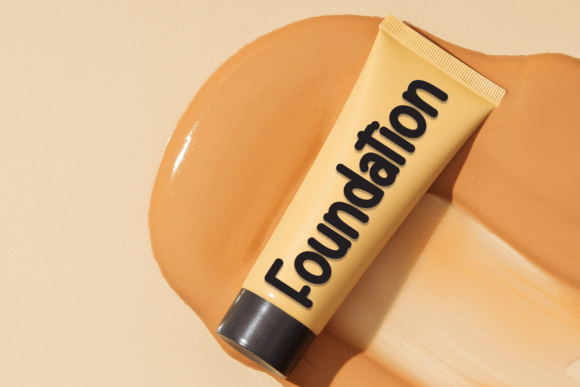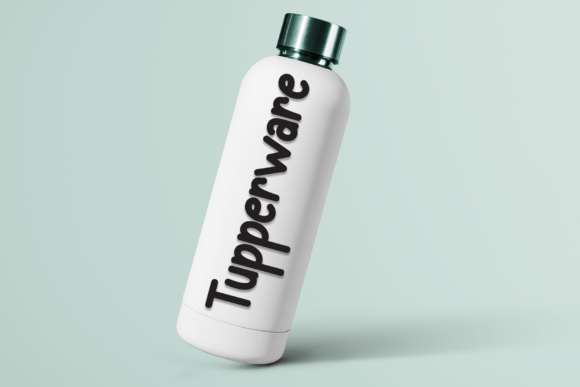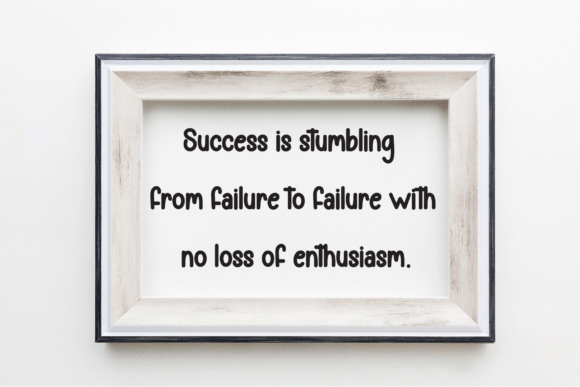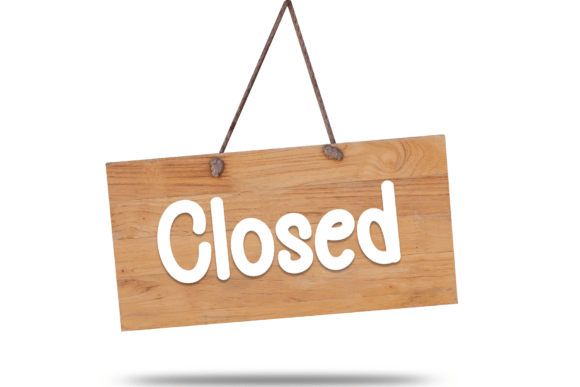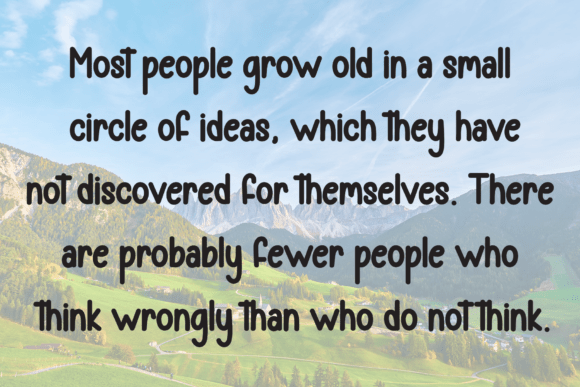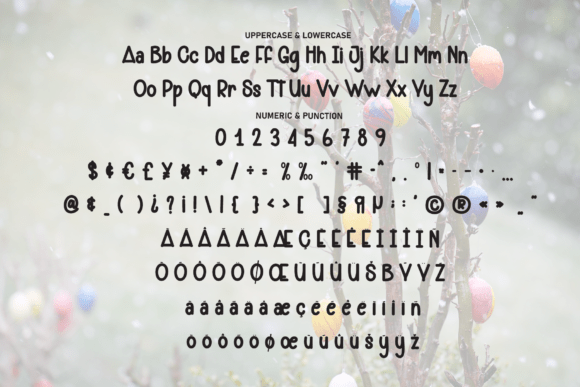
Easter Rainday Font: Elevate Your Designs with a Fresh and Friendly Vibe
Are you on the hunt for a font that can add a touch of warmth and approachability to your designs? Look no further than Easter Rainday Font. This casual and neat display font is perfect for designers and crafters who want to infuse their projects with a fresh and friendly vibe. In this article, we’ll dive into the features and benefits of Easter Rainday Font, and explore how it can elevate your designs for packaging, posters, social media graphics, and more.
Clean Lines and Relaxed Structure
One of the standout features of Easter Rainday Font is its clean lines and relaxed structure. The font’s design is characterized by a sense of ease and approachability, making it perfect for projects that require a friendly and inviting tone. The clean lines ensure that the font remains legible and easy to read, even at smaller sizes, while the relaxed structure adds a touch of playfulness and whimsy.
Perfect for Packaging, Posters, and Social Media Graphics
Easter Rainday Font is a versatile font that can be used for a wide range of design projects. Its fresh and friendly vibe makes it perfect for packaging, posters, and social media graphics. Whether you’re designing a label for a craft product, creating a poster for a spring-themed event, or crafting a social media graphic for Easter, Easter Rainday Font is a great choice.
For packaging designers, Easter Rainday Font offers a unique opportunity to add a touch of personality to product labels and branding. The font’s approachable design and clean lines make it easy to read and understand, even on small labels. Plus, the font’s relaxed structure adds a touch of whimsy and playfulness, making it perfect for craft products and handmade goods.
For poster designers, Easter Rainday Font is a great choice for creating eye-catching and engaging graphics. The font’s bold and display-style design makes it perfect for headlines and titles, while its clean lines and relaxed structure ensure that the text remains easy to read.
Adding Charm and Clarity to Your Projects
One of the key benefits of Easter Rainday Font is its ability to add charm and clarity to your projects. The font’s approachable design and clean lines make it easy to read and understand, while its relaxed structure adds a touch of personality and whimsy. Whether you’re designing for packaging, posters, or social media graphics, Easter Rainday Font is a great choice for adding a touch of warmth and friendliness to your designs.
Polished Appearance
Another benefit of Easter Rainday Font is its polished appearance. Despite its casual and relaxed structure, the font has a refined and sophisticated look that makes it perfect for a wide range of design projects. Whether you’re designing for a high-end brand or a crafty DIY project, Easter Rainday Font is a great choice for adding a touch of polish and professionalism to your designs.
Tips for Using Easter Rainday Font
Here are a few tips for getting the most out of Easter Rainday Font:
• Use Easter Rainday Font for headlines and titles to add a touch of personality and whimsy to your designs.
• Pair Easter Rainday Font with a clean and simple sans-serif font for a bold and modern look.
• Experiment with different colors and textures to add depth and interest to your designs.
• Use Easter Rainday Font for packaging and labeling to add a touch of warmth and friendliness to your products.
Easter Rainday Font is a fresh and friendly display font that’s perfect for designers and crafters who want to add a touch of warmth and approachability to their designs. With its clean lines, relaxed structure, and polished appearance, Easter Rainday Font is a versatile font that can be used for a wide range of design projects. Whether you’re designing for packaging, posters, social media graphics, or more, Easter Rainday Font is a great choice for adding a touch of personality and whimsy to your designs.
So why not give Easter Rainday Font a try? With its unique blend of style and approachability, it’s sure to become a favorite in your design toolkit.